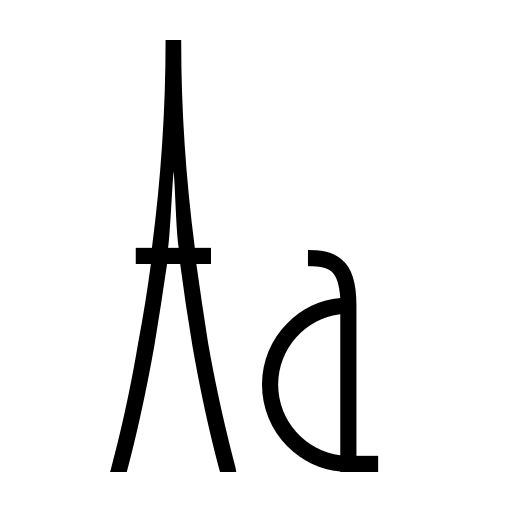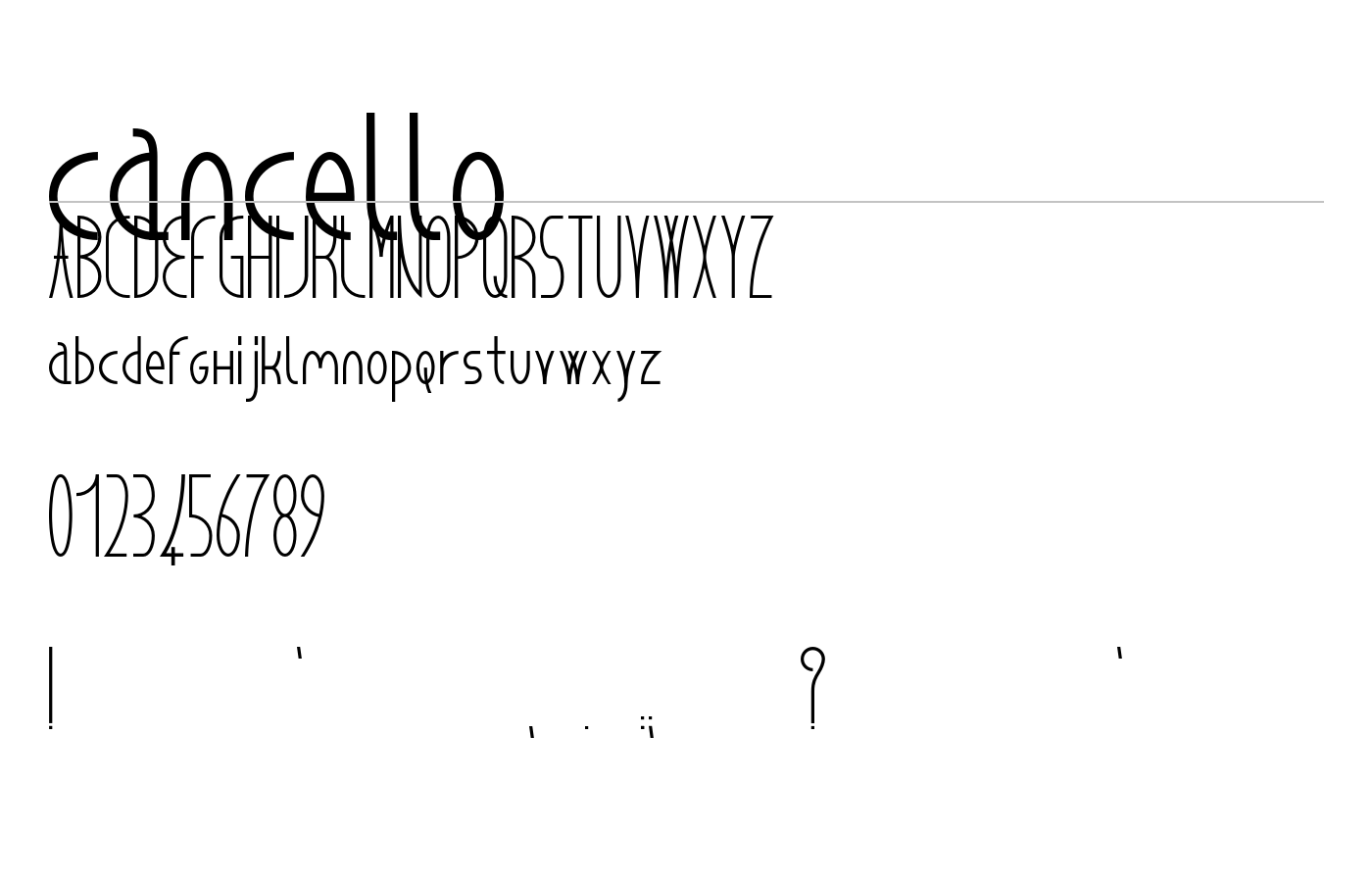
Cancello is a tall and narrow sans serif font with a delicate, modern feel characterized by its very thin strokes and minimal contrast. Its unique letterforms, such as the single-story "a" and distinctive numeral shapes, lend a contemporary, artistic personality well-suited for elegant headlines, fashion branding, or any design that aims for a sleek, refined look. This font works best in large sizes where its fine details can be appreciated, making it ideal for editorial layouts, posters, and luxury product packaging.
cancello Font